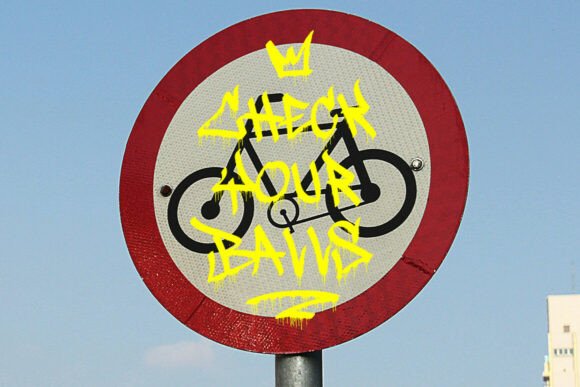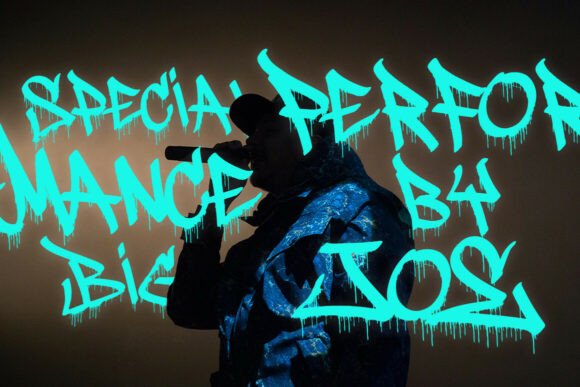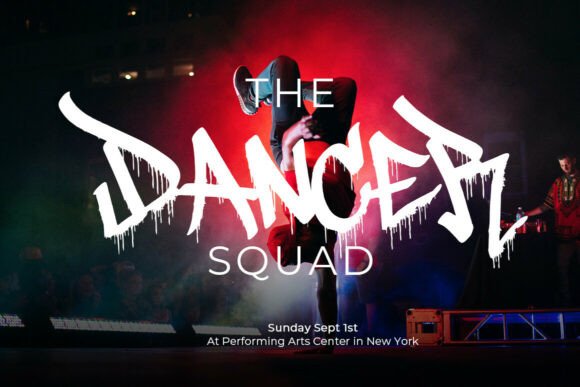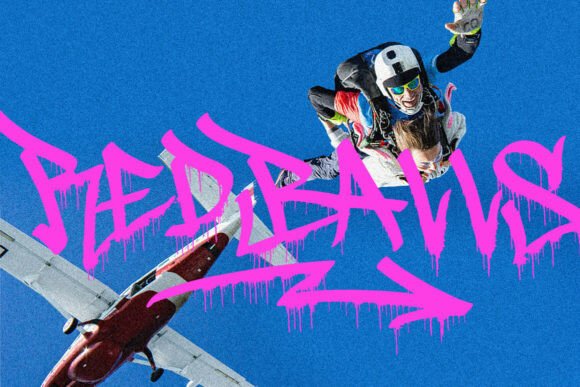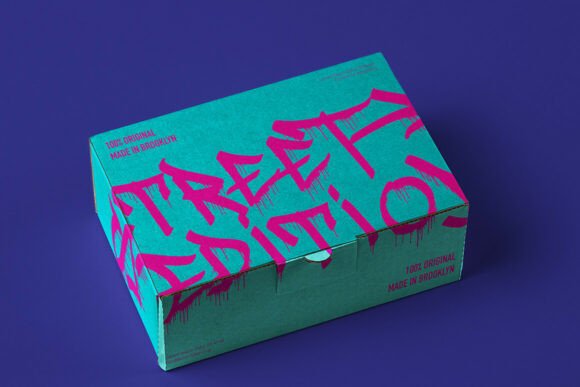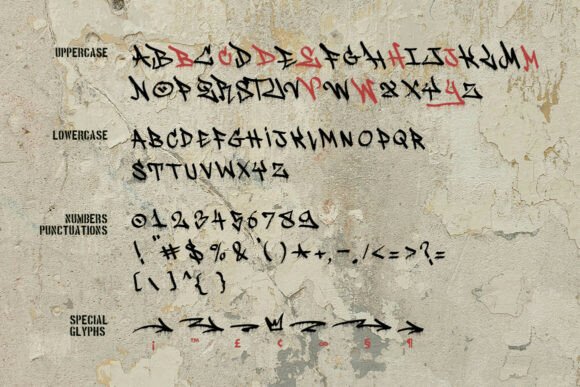
Drip Tags Font: Unleash the Raw Energy of Graffiti on Your Designs
Are you tired of using the same old fonts in your designs? Do you want to add a touch of rebelliousness and street-style attitude to your work? Look no further than Drip Tags Font, a bold and expressive graffiti tagging font that’s inspired by the real streets. In this article, we’ll dive into the world of Drip Tags Font and explore its unique features, making it a must-have for designers and crafters looking to add some edge to their creations.
The Birth of Drip Tags Font
Drip Tags Font is born from the energy of the streets, created by a graffiti bomber who poured their heart and soul into designing a font that captures the essence of street art. Every letter, every drip, and every imperfection is a testament to the raw, unbridled creativity that can be found in the urban landscape. This font is not just a collection of characters; it’s an experience, a journey into the world of graffiti where every tag is a declaration of individuality and self-expression.
What Makes Drip Tags Font Unique?
So, what sets Drip Tags Font apart from other fonts out there? Here are a few key features that make it stand out:
- Natural Drip Effects: Drip Tags Font comes with natural drip effects that flow directly from each letter, creating an authentic marker bleed look that’s reminiscent of tags found on walls, trains, and alleyways.
- Imperfect and Alive: Every character in Drip Tags Font feels alive and imperfect, embracing the uncontrolled beauty of street graffiti. This font is not about precision; it’s about attitude and character.
- Integrated Drips: The drips are integrated directly into the letterforms, giving Drip Tags Font a bold, organic, and expressive style without the need for extra effects.
- Uppercase Letters: Uppercase letters are designed to work best as leading or ending characters in a word, adding emphasis and attitude to your designs.
Tips for Using Drip Tags Font
While Drip Tags Font is designed to be bold and expressive, it’s also versatile and adaptable. Here are some tips for getting the most out of this font:
- Experiment with Placement: If the result feels too aggressive or unbalanced, you’re encouraged to explore alternative placements to match your own style.
- Fine-Tune Spacing: Kerning and spacing have been carefully adjusted to achieve the best overall flow, but graffiti is personal by nature. Feel free to fine-tune spacing to fit your unique composition and visual rhythm.
PUA Encoding: What It Means for Designers
Drip Tags Font comes with PUA (Private Use Area) encoding, which means that every character, including alternates and ligatures, is easily accessible through your design software. This feature makes it easy to get creative with Drip Tags Font, experimenting with different combinations of letters and drips to create unique and eye-catching designs.
Who is Drip Tags Font for?
Drip Tags Font is perfect for designers and crafters who want to add a touch of street-style attitude to their work. Whether you’re designing:
- Streetwear and Apparel: Add a bold, graffiti-inspired look to your designs with Drip Tags Font.
- Posters and Flyers: Create eye-catching posters and flyers that demand attention with Drip Tags Font.
- Digital Art and Graffiti: Use Drip Tags Font to create authentic, street-style graffiti art that pops.
Drip Tags Font is more than just a font; it’s an experience, a journey into the world of street art and graffiti. With its natural drip effects, imperfect and alive characters, and integrated drips, this font is perfect for designers and crafters looking to add some edge to their creations. So why settle for ordinary fonts when you can unleash the raw energy of graffiti on your designs with Drip Tags Font?